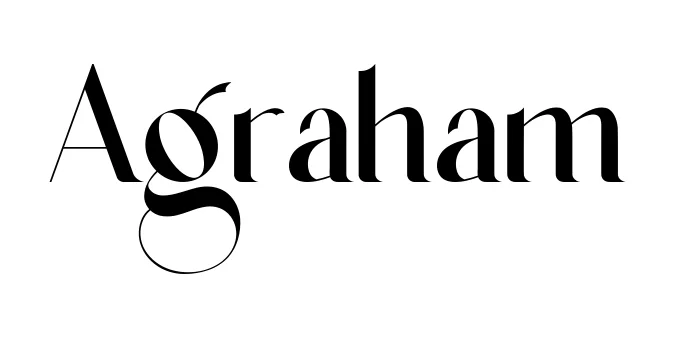
Agraham
Designed by Yahya Adam
Agraham is a sophisticated modern serif typeface that blends classical elegance with a contemporary aesthetic. It is characterized by its high-contrast strokes, refined curves, and sharp, delicate serifs, making it an excellent choice for designers looking to convey a sense of luxury and professionalism. The font's architecture is built on a solid foundation of traditional letterforms, yet it incorporates subtle modern flourishes that give it a unique personality in the crowded serif market.
First introduced to provide a versatile solution for high-end editorial work, Agraham excels in both large-scale headlines and smaller body text. Its balanced spacing and clear legibility make it a reliable tool for luxury branding, fashion magazines, and wedding invitations. Over time, it has become a favorite among graphic designers for its ability to add a touch of timeless sophistication to any digital or print project without feeling dated.
Agraham Best Uses
Perfect for creating high-end, luxury brand identities and logos.
Excellent for magazine mastheads, headlines, and sophisticated layouts.
Adds a premium feel to website headers and landing pages.
Ideal for wedding invitations, business cards, and formal event posters.